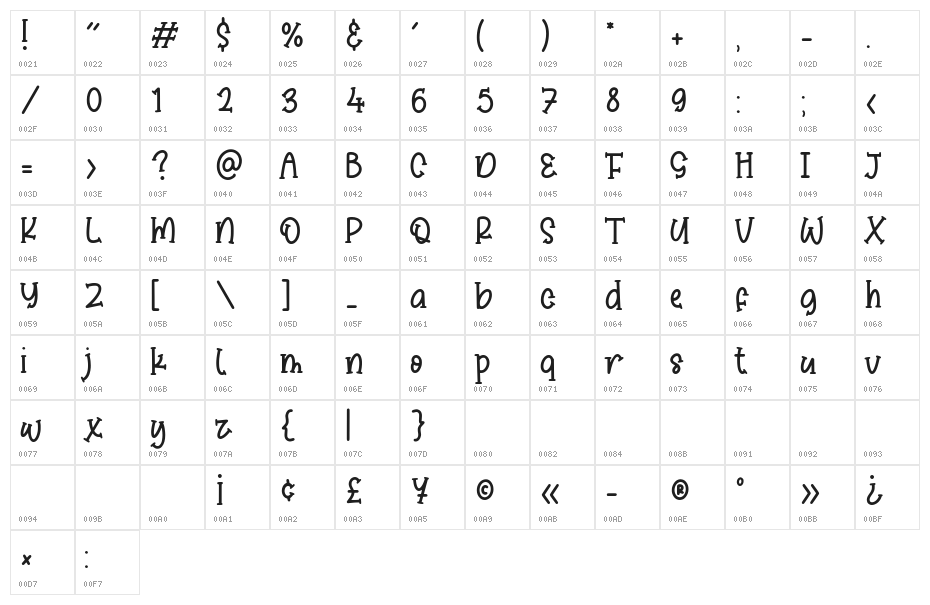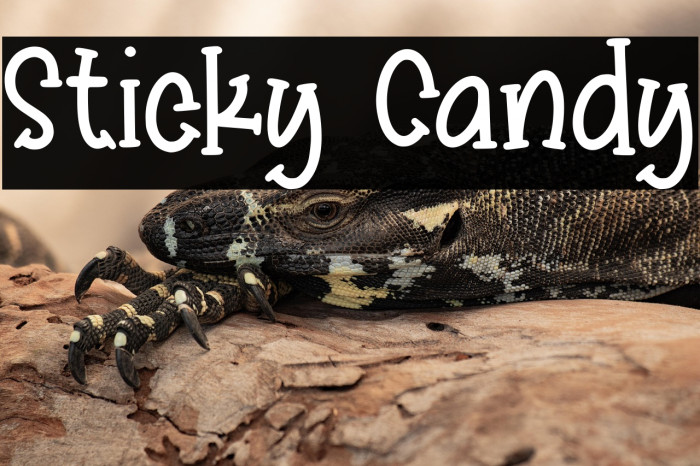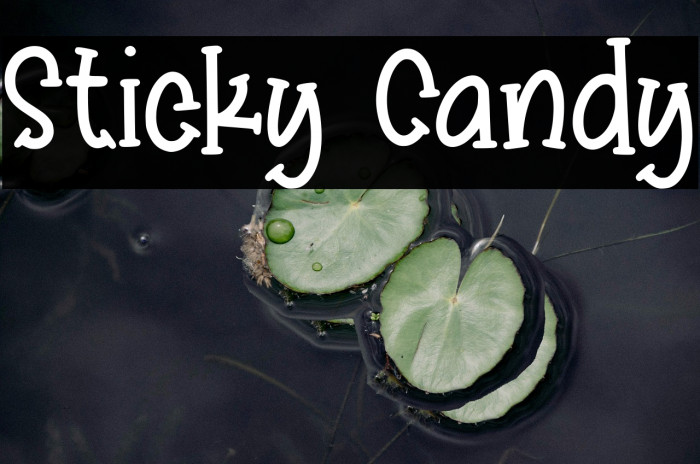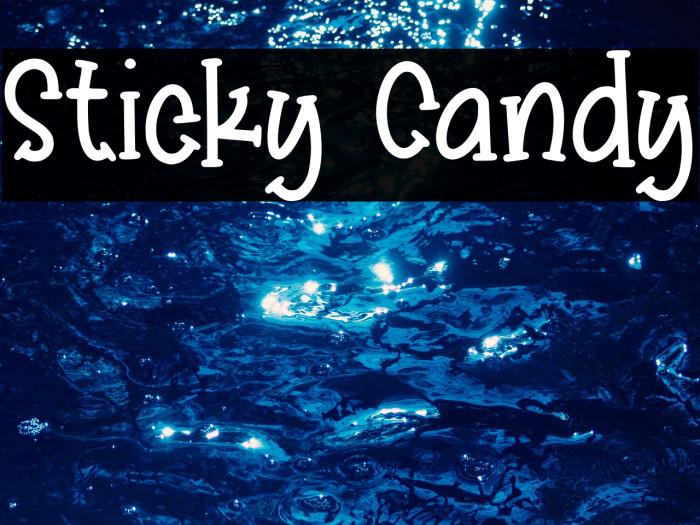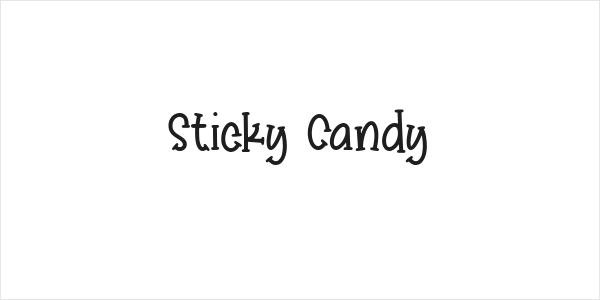
Sticky Candy Font
Sticky Candy Description
This playful and whimsical font features a hand-drawn style with a bouncy, irregular baseline that gives it a lively and informal appearance. The characters are rounded and slightly uneven, adding to the casual and friendly feel. The uppercase and lowercase letters are distinct yet harmonious, with a consistent stroke width that maintains readability. The numbers and special characters follow the same playful design, making them suitable for creative and fun projects. This font is ideal for designs that require a touch of personality and charm.
| Proposed Projects | Perfect for children's books, playful branding, greeting cards, and party invitations. |